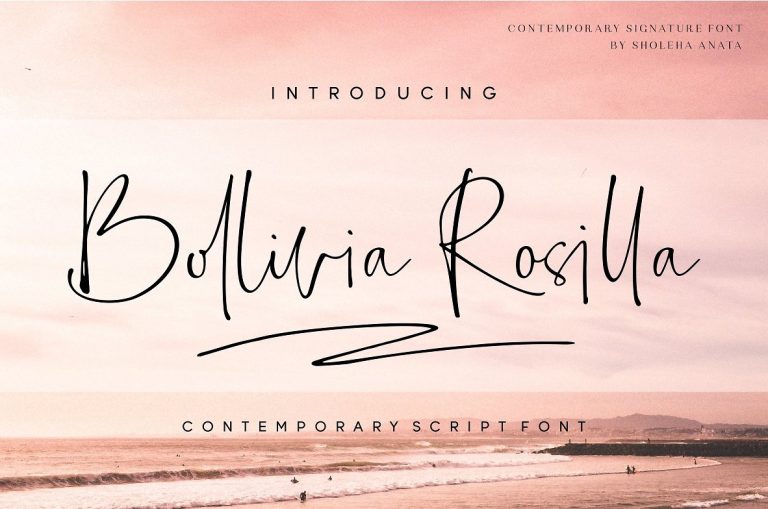
Bollivia Rosilla Script Font
Hi designer! The best free font package today is a contemporary script font. Introducing Bollivia Rosilla Font! Bollivia Rosilla designed by  Dezignata. Bollivia Rosilla is an elegant script font. Very suitable for greeting cards, branding materials, business cards, quotes, posters, and more!This font are perfect for wedding postcard. Or you can create perfect and unique design of your logo, blog, stationery, marketing, magazines and more ?